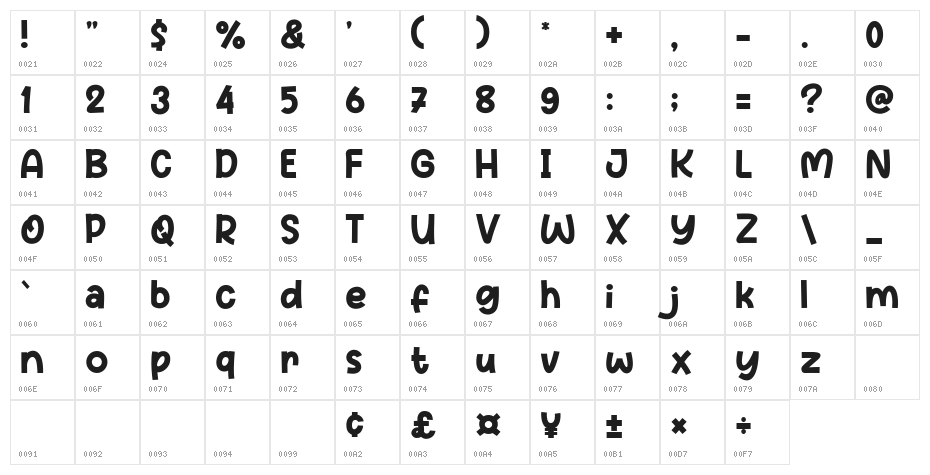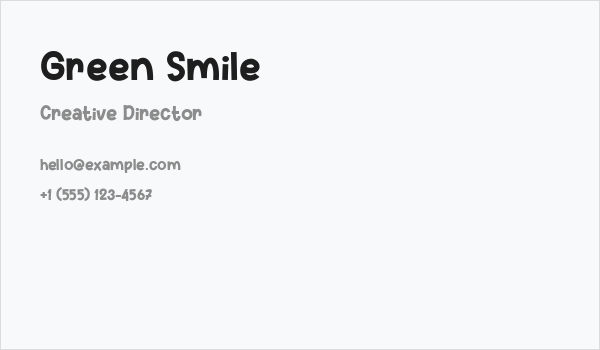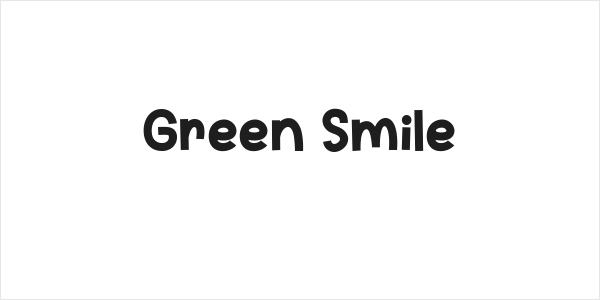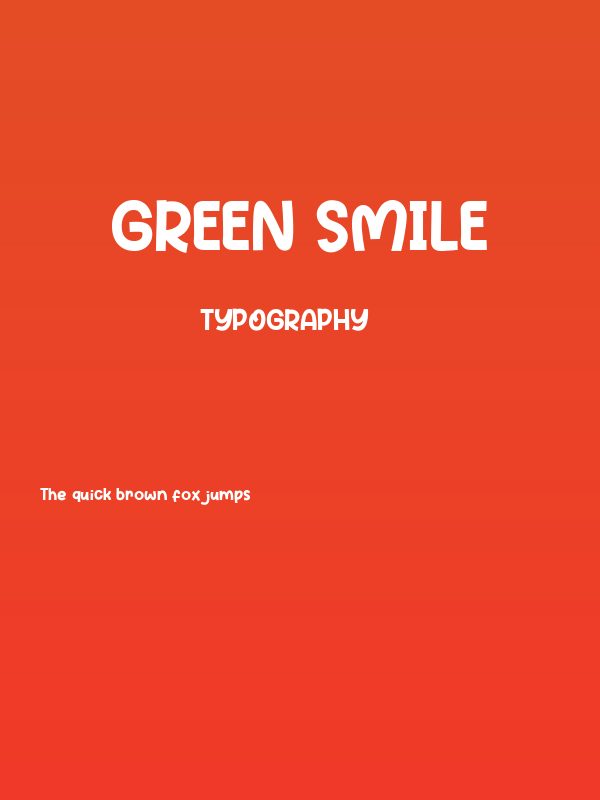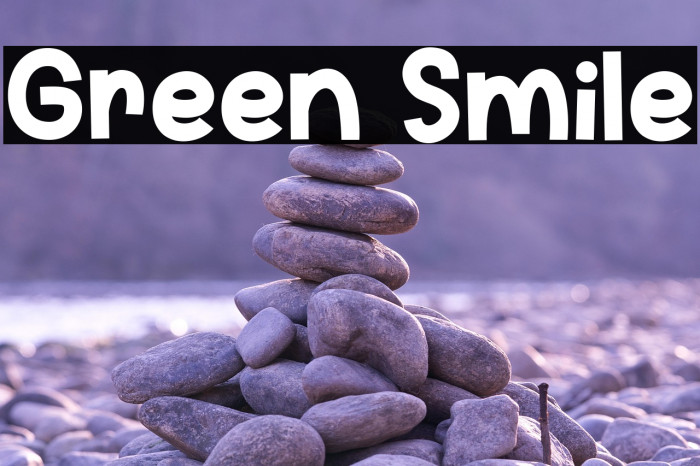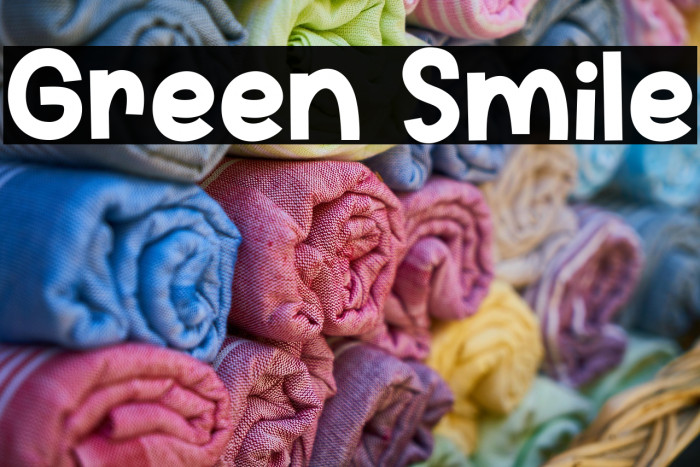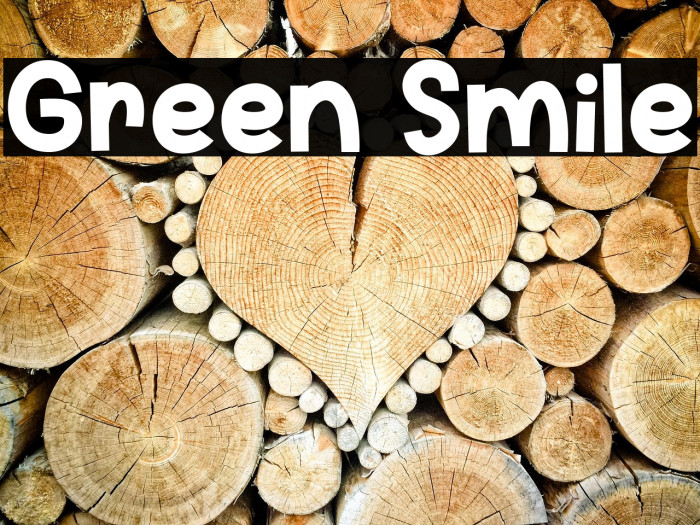
Green Smile Font
Green Smile Description
This playful and bold font features rounded edges and a whimsical style, making it ideal for projects that require a fun and approachable aesthetic. The characters are thick and well-defined, with a consistent stroke width that gives the font a cohesive look. The uppercase and lowercase letters maintain a uniform style, while the numerals and special characters complement the overall design. The font's unique personality is perfect for creative projects, adding a touch of humor and friendliness to any text.
| Proposed Projects | Ideal for children's books, playful branding, party invitations, and creative posters. |